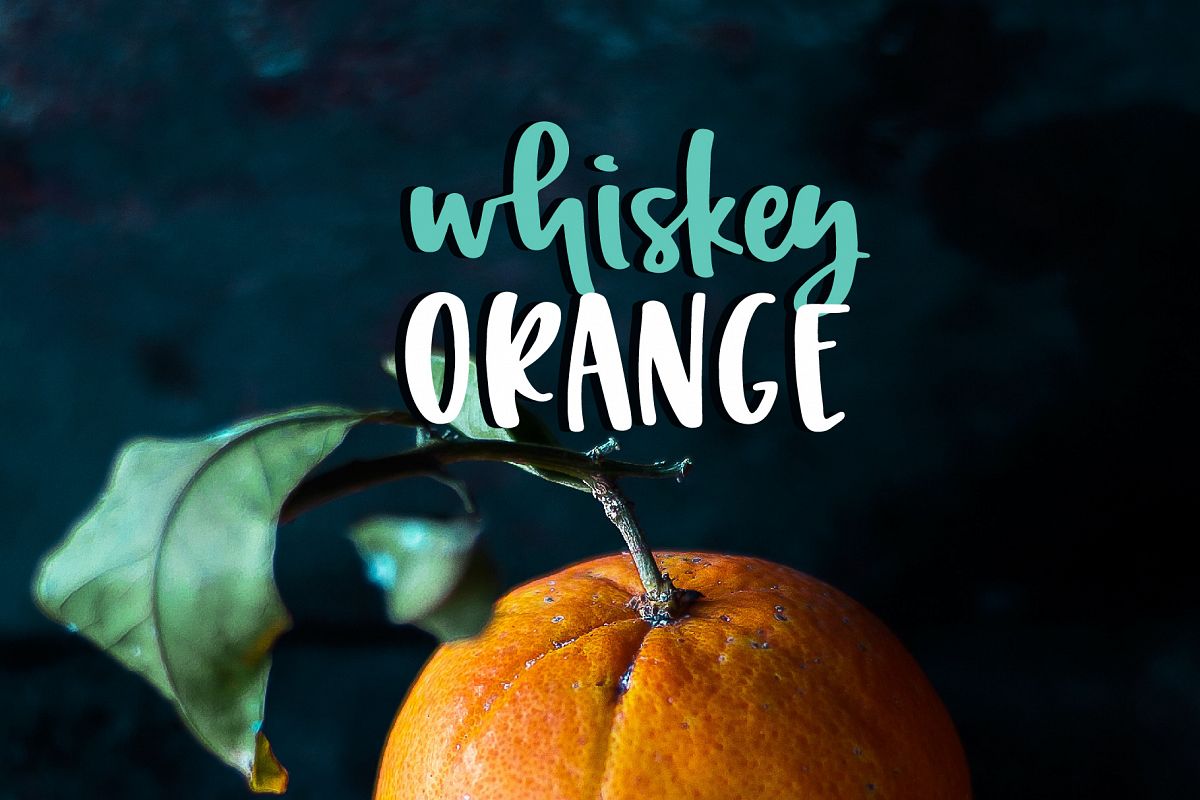
Whiskey Orange
Whiskey Orange is a super casual script that works for so many things! Includes uppers, lowers, punctuation, alternates, ligatures and more!